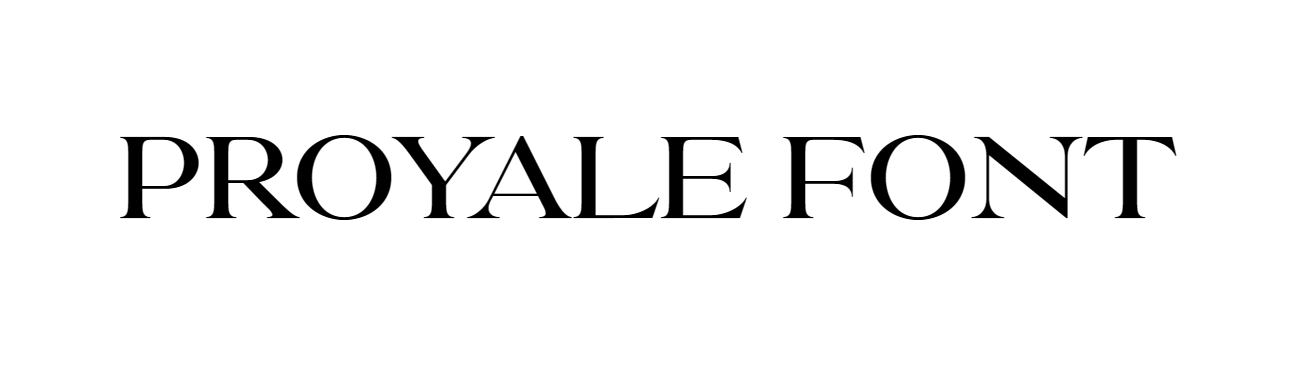
Proyale
Proyale is a serif font made by Sarid Ezra (2022). It has the traditional, bookish feel of type you see in novels, newspapers and long-established brands. You can download it for free and test it with your own words in the preview above.
- OpenType features: Stylistic alternates and 7 stylistic sets
You get every letter from A to Z in both cases and all the numbers from 0 to 9, which means Proyale can handle full sentences, dates and prices. Everyday marks like &, !, ? and @ are there too. Thanks to its accented letters, it also works for Spanish, French, German, Portuguese and Italian, not just English. Of its 338 glyphs, about 140 are not on your keyboard at all. That is where the alternates explained below live.
Think of Proyale for book covers, magazine headlines and classic branding. Serif fonts shine in headlines and printed text. For long paragraphs on phones, check that it still reads well at small sizes.